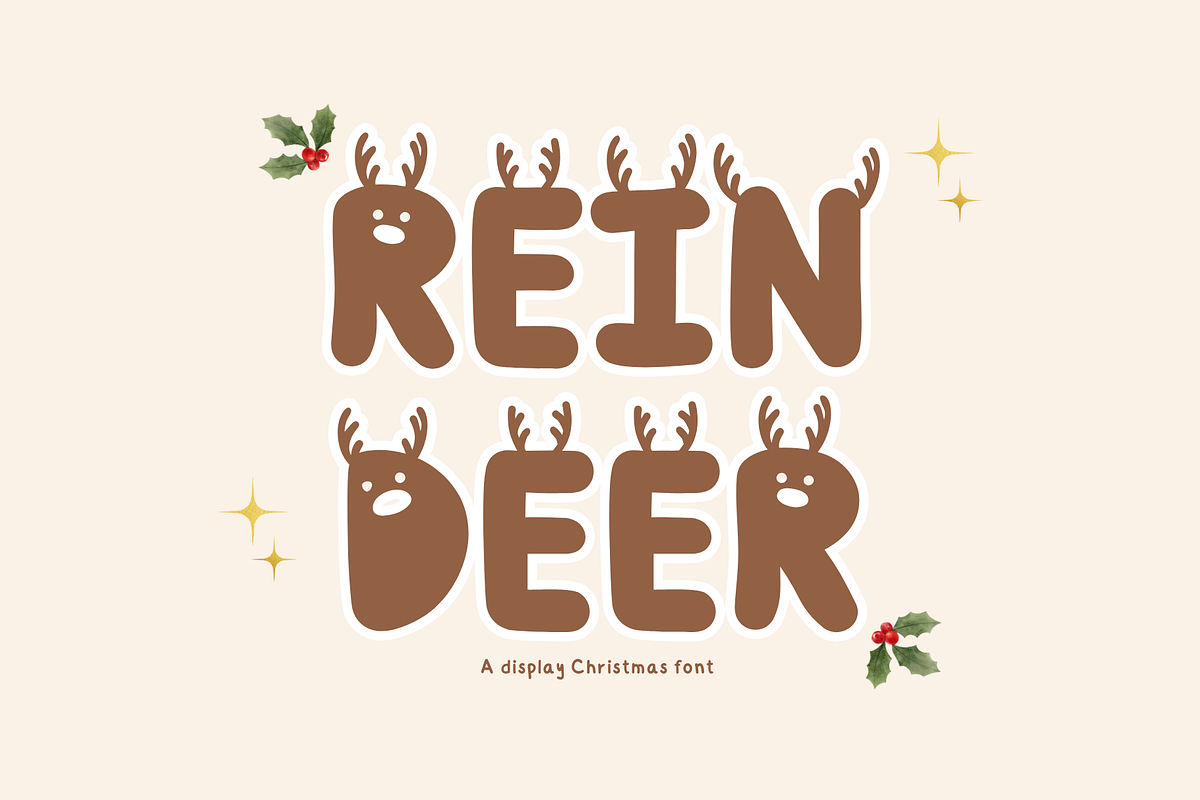
Reindeer Font Free Download is a festive and playful typeface perfect for bringing holiday cheer to your designs. With its whimsical, hand-drawn style and cozy winter charm, Reindeer is ideal for Christmas cards, seasonal invitations, holiday decor, festive packaging, and winter-themed social media graphics.
The font captures the spirit of the holidays with fun, decorative letterforms that feel warm, joyful, and family-friendly—making it a great choice for both kids' and adult holiday projects alike.